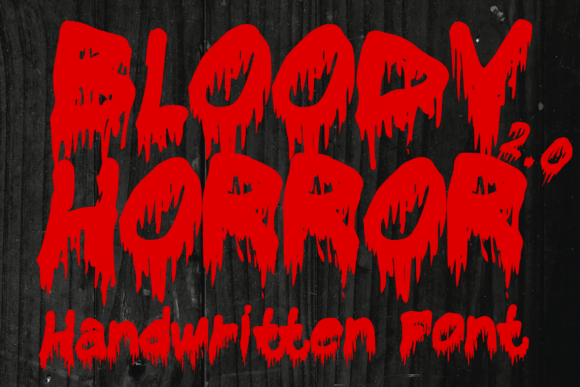
Bloody Horror 2.0 Font: The Ultimate Horror and Halloween Companion
I’ll never forget the time I was working on a Halloween-themed project for a client, and I just couldn’t find the right font to capture the spooky atmosphere. The client wanted something that would make their audience shiver, but I was stuck with the usual boring fonts. That’s when I stumbled upon the Bloody Horror 2.0 font, and it was love at first sight! 💀
In this article, I’ll share my experience with this amazing font, its features, and how to make the most of it. Whether you’re a designer, crafter, or creative hobbyist, you’ll learn how to use Bloody Horror 2.0 to create fabulous designs that scream Halloween vibes.
What Makes Bloody Horror 2.0 So Special?
Bloody Horror 2.0 is a hand-written font made to look like it’s been written in ink. The new version includes English, French, German, Italian, and Spanish, making it a versatile choice for various projects. Here are some of the things I love about this font:
- ✨ Unique and eye-catching design: The font has a distinctive, hand-crafted feel that sets it apart from other fonts.
- ✅ Multi-language support: With support for English, French, German, Italian, and Spanish, you can use this font for a wide range of projects.
- 💀 Perfect for horror and Halloween themes: The font’s creepy, handwritten style is ideal for creating spooky designs.
While I absolutely love Bloody Horror 2.0, there are a few quirks to keep in mind:
- ⚠️ Limited use outside of horror and Halloween themes: This font is so good at creating a spooky atmosphere that it might not be the best choice for other types of projects.
- 🤔 Some letters may require manual kerning: As with any handwritten font, you might need to adjust the kerning to get the perfect look.
- Experiment with OpenType features, such as Stylistic Alternates, to create unique effects.
- Access OpenType features, such as Glyphs and Ligatures, to customize your text.
The Story Behind Bloody Horror 2.0
Bloody Horror 2.0 was created with the horror and Halloween enthusiast in mind. The designer wanted to create a font that would capture the spooky atmosphere of the season, while also being versatile enough for various design projects. The result is a font that’s both creepy and elegant.
| What languages does Bloody Horror 2.0 support? | English, French, German, Italian, and Spanish. |
In conclusion, Bloody Horror 2.0 is an amazing font that’s perfect for horror and Halloween-themed designs. With its unique design, multi-language support, and versatility, it’s a great addition to any designer’s toolkit. Whether you’re creating t-shirts, book designs, or party invitations, Bloody Horror 2.0 is sure to bring the spooky vibes.